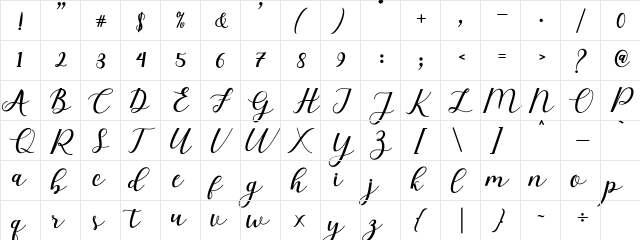
Elizabeth Script Regular Font Preview
Elizabeth Script Regular
Elizabeth Script Regular Font Details
Design Context for Elizabeth Script Typeface
Elizabeth Script flows with the natural rhythm of handwritten lettering, making it ideal for designs that call for warmth and personal expression.
Font Pairing: Combine Elizabeth Script with a simple geometric sans for maximum contrast — the tension between flowing curves and clean structure is a classic typographic pairing.
Pro Tip: Pair Elizabeth Script with a clean sans-serif for supporting text. The contrast between fluid script and geometric structure creates an elegant typographic hierarchy.